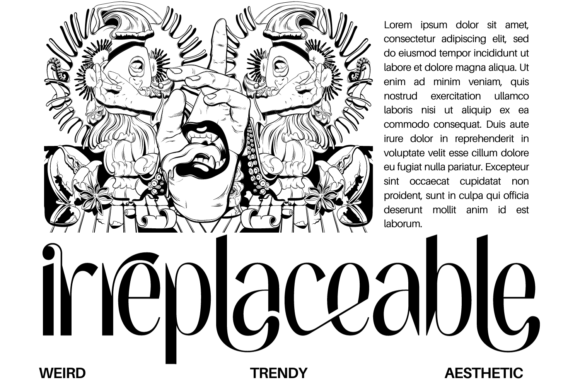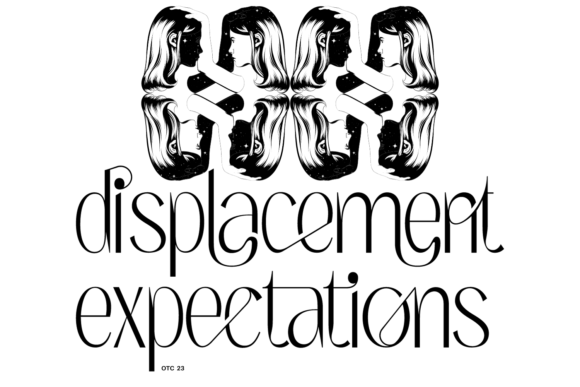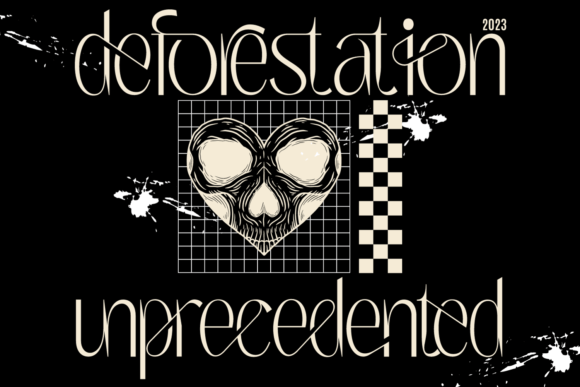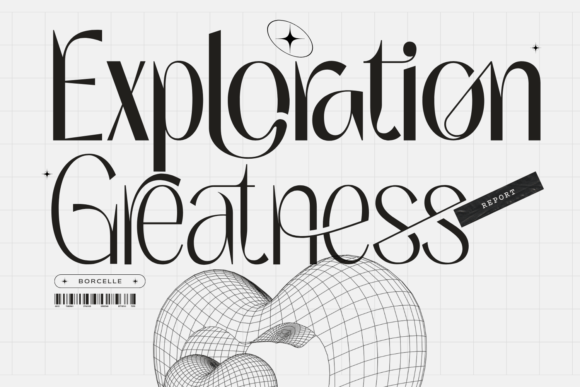
Introduction to Exploration Greatness Font
Exploration Greatness Font is a condensed sans-serif family.
This font is good for logo design, Social media, Movie Titles, book titles, short text even long text letters, and good for your secondary text font with script or serif Exploration Greatness was built with OpenType features and includes 100 ligatures, alternate, numbers, and punctuation, and it also supports other languages.